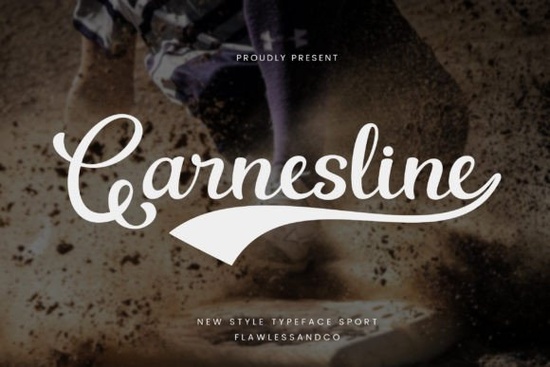
If you're working on a sports-themed design especially something tied to baseball you’ve probably searched for a font that feels authentic without looking dated. That’s where Garnesline Font comes in. With its script retro-style lettering, Garnesline captures the nostalgic charm of classic ballpark signage and vintage team jerseys, but with enough polish to work beautifully in modern branding, apparel, or promotional materials.
Unlike stiff, blocky athletic fonts, Garnesline flows with a handwritten rhythm that still reads clearly at a glance. It’s this balance between personality and legibility that makes it especially useful for designers creating logos, merch, or event posters for little league teams, sports cafes, or even baseball-themed birthday parties.
What makes Garnesline stand out from other script fonts?
Many script fonts lean heavily into elegance or whimsy think wedding invitations or boutique packaging. Garnesline, however, channels a distinctly American pastime vibe. Its slightly uneven baseline, tapered strokes, and subtle bounce mimic the hand-painted signs you’d see at a 1950s stadium concession stand. Yet it avoids being too kitschy; the spacing and proportions are clean enough for professional use.
If you enjoy fonts like Magnolia for their graceful curves or appreciate the friendly informality of Kindness Teacher, you’ll find Garnesline offers a different kind of warmth one rooted in competition, camaraderie, and summer afternoons at the diamond.
Who should consider using Garnesline?
It’s also worth noting that Garnesline pairs well with clean sans-serif fonts for contrast think pairing it with something neutral for headlines while letting Garnesline handle taglines or player names.
How does it compare to similar retro script fonts?
Fonts like The Summer Pinch offer a breezy, vacation-like feel, while Handwriting Font leans more toward casual note-taking. Garnesline is more intentional it’s built for identity, not just decoration. Every curve hints at motion, like a bat swing or a pitcher’s windup, which gives your design an energetic undertone even when static.
Tips for getting the most out of Garnesline
Because it’s a script font with connected or semi-connected letters, readability matters. Here’s how to use it effectively:
- Avoid all-caps usage Garnesline’s charm lives in its lowercase flow.
- Use generous spacing if placing over busy backgrounds (like jersey textures or photo prints).
- Limit line length best for short phrases like team names, slogans, or headlines.
- Test print sizes some fine details may blur on small items like keychains or stickers.
Also, remember that retro doesn’t mean low-res. Pair Garnesline with high-quality vector graphics or crisp photography to keep your project feeling current, not cluttered.